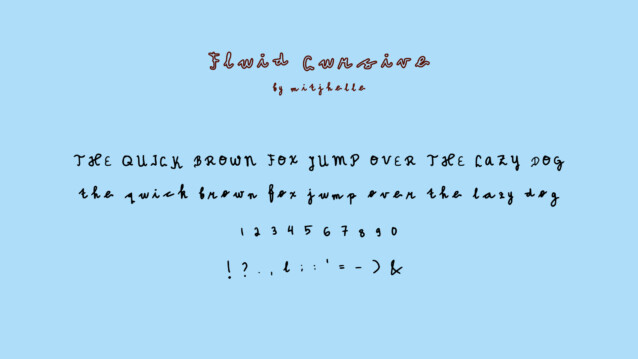
Fluid Cursive Display Font
Fluid Cursive Display Font is a creative and simple script font. It has unique and well-balanced characters, and as a result, it matches a wide pool of designs. Add it to your most creative ideas, and notice how it makes them come alive!